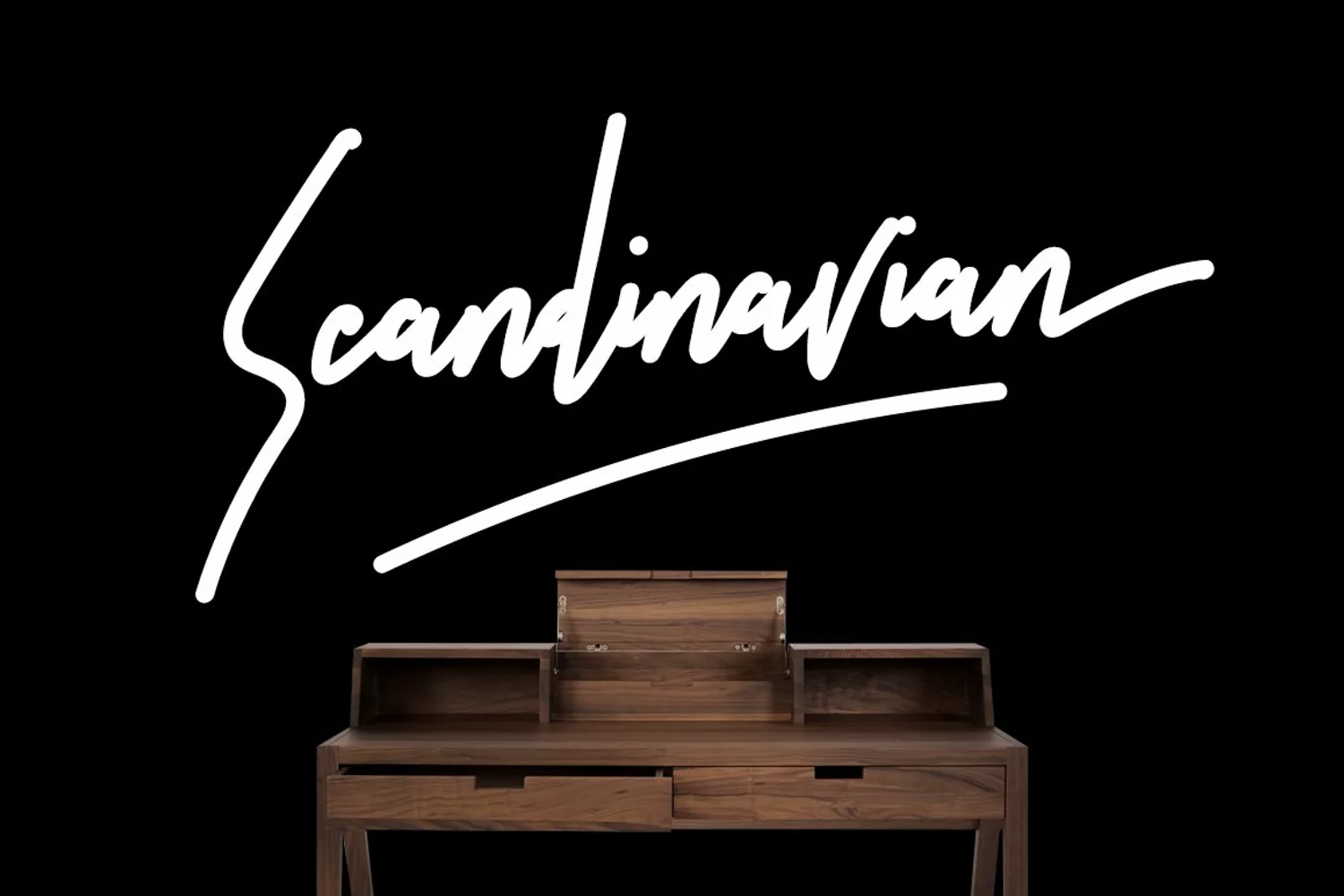
Give your designs an authentic handcrafted feel. "Astrolight" is perfectly suited to signature, stationery, logo, typography quotes, magazine or book cover, website header, clothing, branding, packaging design and more. Included Stylistic Alternates, Ligatures & Swashes.